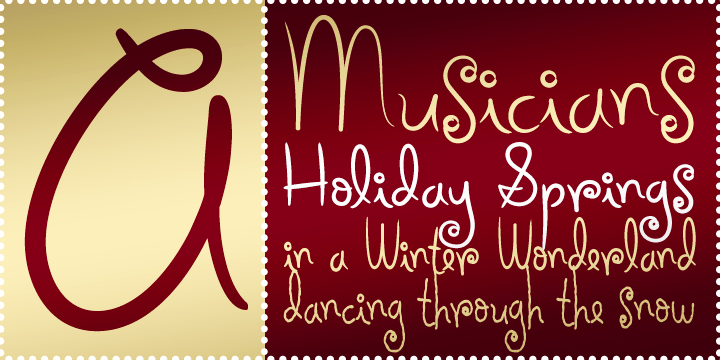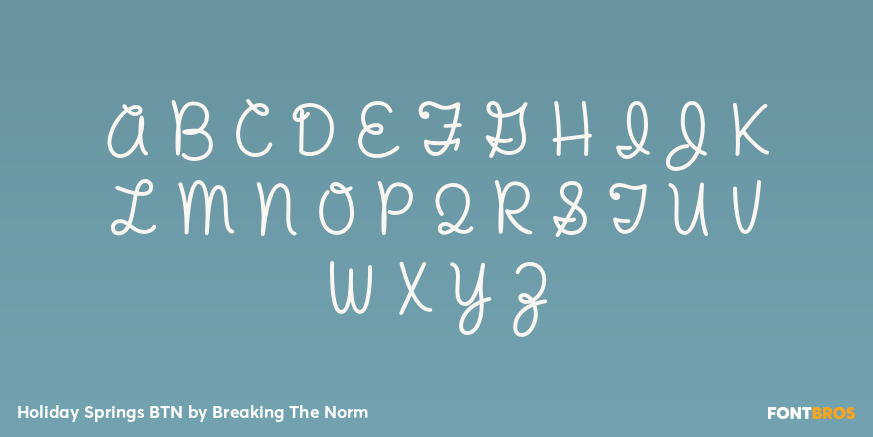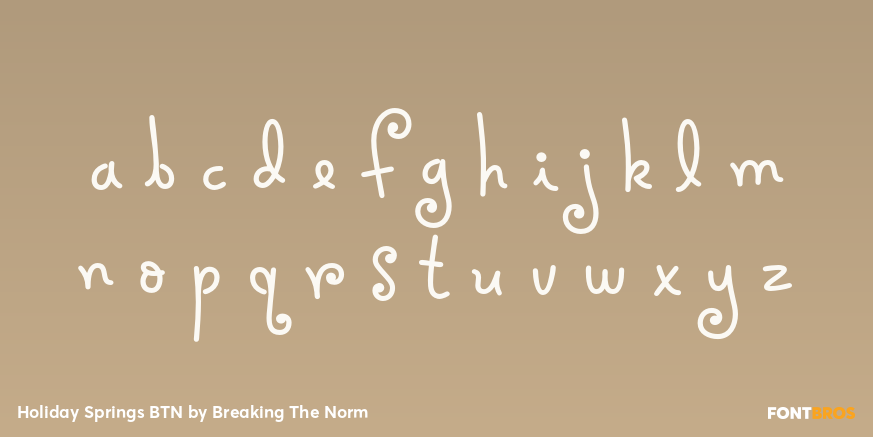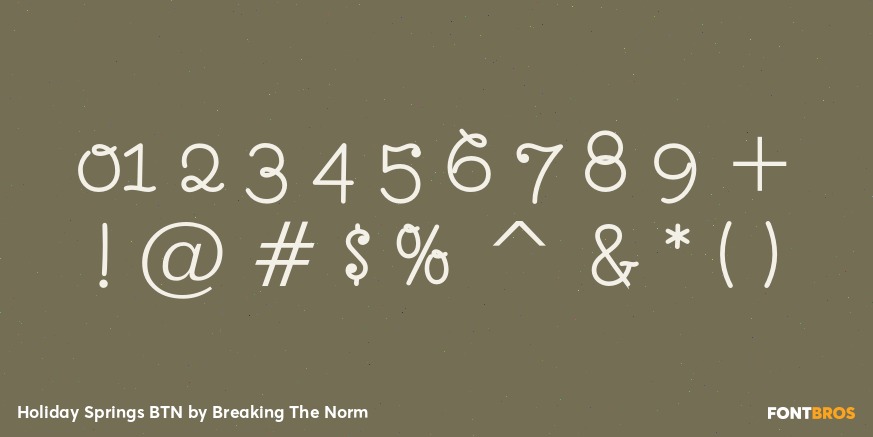
Holiday Springs BTN
Font Family by Breaking The Norm
Holiday Springs BTN is a playful display family with an elegant streak and a relaxed handmade charm. Its lively personality gives it a decorative, celebratory feel, while the varied companion styles add extra flair and visual range. The family is well suited for invitations, greeting cards, craft projects, seasonal materials, packaging, boutique branding, party graphics, and playful editorial design. With Light, Regular, Bold, Quill, and Wobbly variations, Holiday Springs BTN offers multiple ways to create typography that feels whimsical, stylish, and full of decorative character.